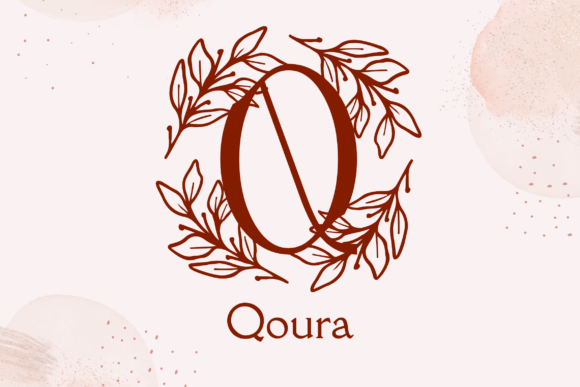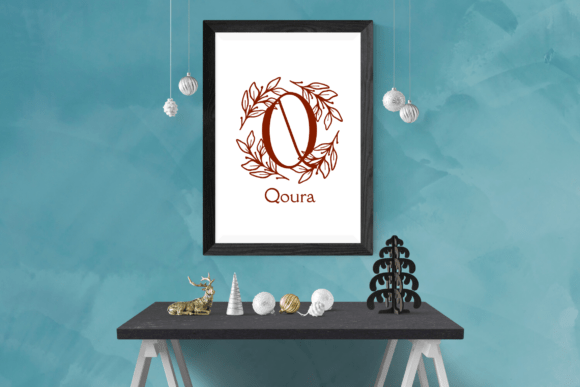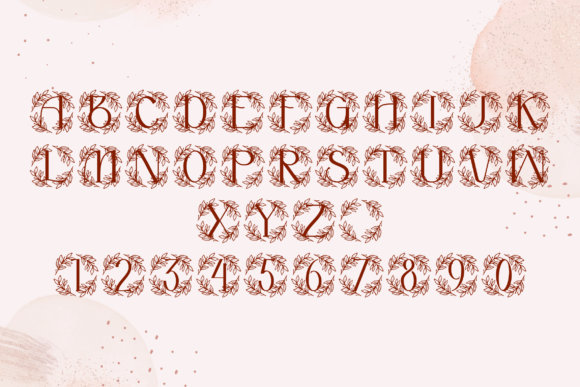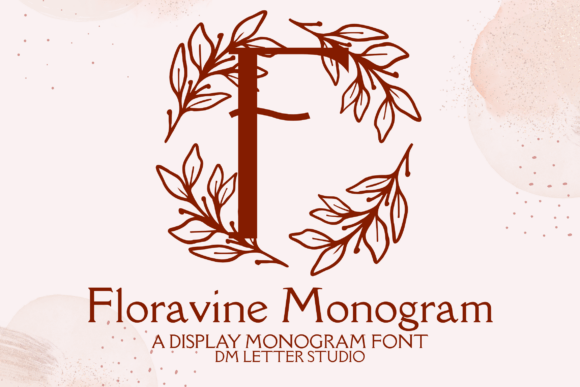
Introducing Floravine Monogram Font: Elevate Your Designs with Elegant Floral-Vine Emblems
Are you a designer or crafter looking for a unique and elegant way to add a touch of sophistication to your projects? Look no further than Floravine Monogram Font, a beautiful and versatile font that transforms simple initials into stunning floral-vine emblems. In this article, we’ll explore the features and benefits of Floravine, and how it can elevate your designs to the next level.
What is Floravine Monogram Font?
Floravine Monogram Font is a carefully crafted font designed to turn simple initials into beautiful, handcrafted floral-vine emblems. With its smooth and balanced strokes, Floravine ensures that letters remain clear and legible at any size, making it perfect for a wide range of applications, from wedding suites and boutique logos to keepsake gifts, wax seals, stationery, and luxury packaging.
Key Features of Floravine Monogram Font
- Smooth and Balanced Strokes: Floravine’s strokes are designed to be smooth and balanced, ensuring that letters stay clear and legible at any size.
- Open Counters: The font’s open counters ensure that tiny tags print crisp and clear, while large signage looks elegant and premium.
- Romantic and Airy Feel: Floravine’s floral-vine emblems evoke a romantic and airy feel, perfect for adding a touch of sophistication to your designs.
- Handcrafted Look: The font’s handcrafted look makes it perfect for designers and crafters who want to add a personal touch to their projects.
Use Cases for Floravine Monogram Font
Floravine Monogram Font is incredibly versatile and can be used for a wide range of projects, including:
- Wedding Suites: Add a touch of elegance to your wedding stationery, invitations, and decorations with Floravine’s beautiful floral-vine emblems.
- Boutique Logos: Create a unique and memorable logo for your boutique or small business with Floravine’s elegant monogram font.
- Keepsake Gifts: Add a personal touch to your gifts, such as candles, soaps, or jewelry, with Floravine’s beautiful monogram font.
- Wax Seals: Use Floravine to create elegant wax seals for your letters, invitations, or gifts.
- Stationery: Elevate your stationery, including notebooks, journals, and greeting cards, with Floravine’s beautiful floral-vine emblems.
- Luxury Packaging: Add a touch of sophistication to your luxury packaging with Floravine’s elegant monogram font.
Benefits of Using Floravine Monogram Font
By using Floravine Monogram Font, you can:
- Elevate Your Designs: Add a touch of elegance and sophistication to your designs with Floravine’s beautiful floral-vine emblems.
- Save Time: With Floravine’s versatile font, you can create beautiful monograms and emblems in no time, saving you time and effort.
- Stand Out: Use Floravine to create unique and memorable designs that will help you stand out from the crowd.
In conclusion, Floravine Monogram Font is a beautiful and versatile font that can elevate your designs to the next level. With its smooth and balanced strokes, open counters, and romantic and airy feel, Floravine is perfect for a wide range of applications, from wedding suites and boutique logos to keepsake gifts, wax seals, stationery, and luxury packaging. Whether you’re a designer or crafter, Floravine is a must-have font that will help you create stunning and memorable designs.